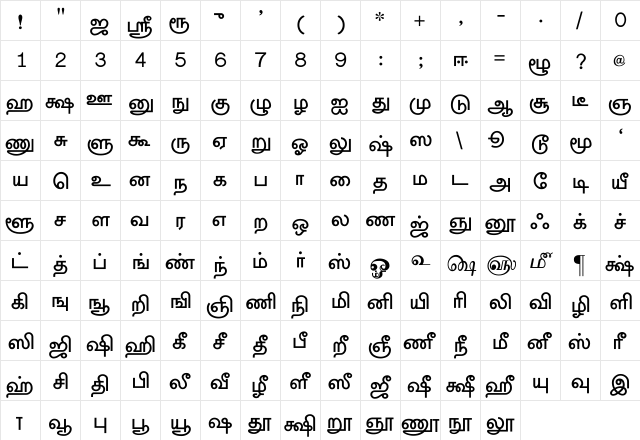
LT-TM-Sindhu Regular
Design Context for LT-TM-Sindhu Typeface
LT-TM-Sindhu takes a measured approach to typography — its balanced proportions and neutral character make it a reliable workhorse for both digital and print work. Its slender proportions lend an understated elegance to any composition.